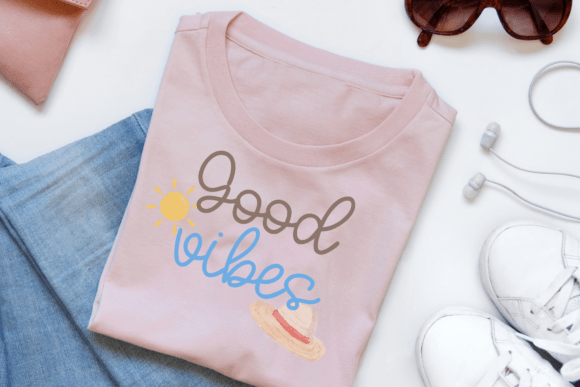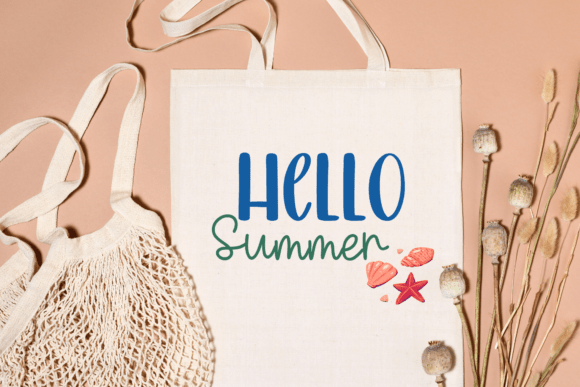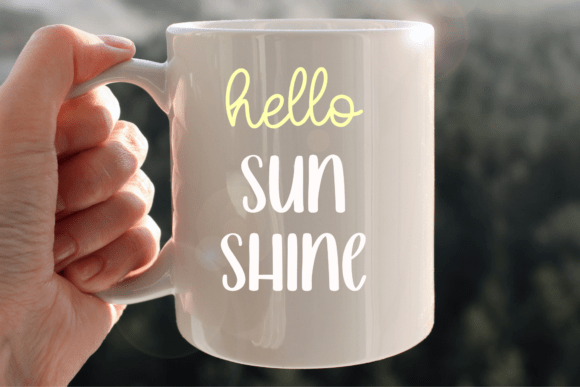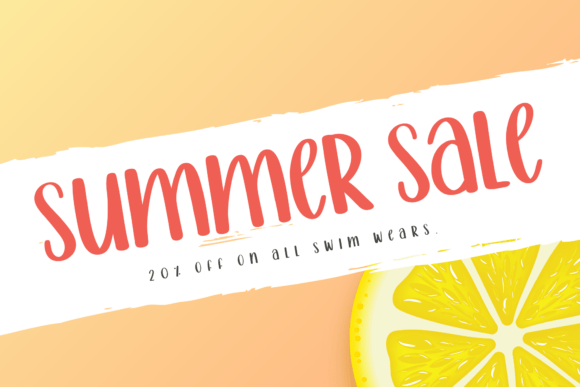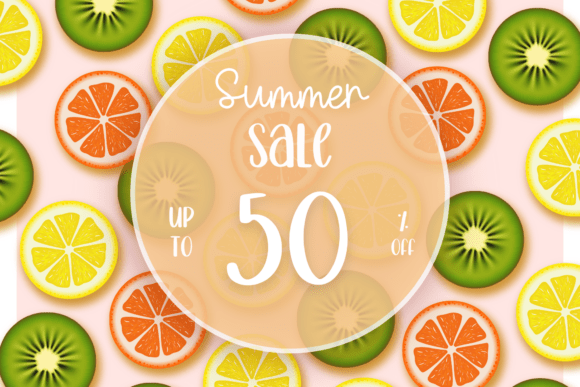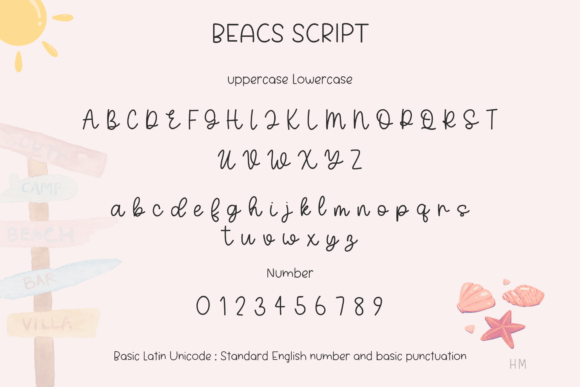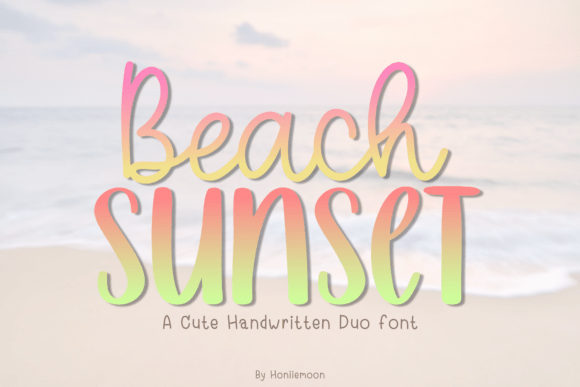
Introducing Beach Summer Font: The Perfect Handwritten Duo for Your Creative Projects
Are you looking for a font that captures the carefree spirit of summer and adds a touch of playfulness to your designs? Look no further than Beach Summer Font, a friendly duo font that combines the charm of handwritten and script styles. This versatile font is perfect for designers and crafters who want to bring a personal touch to their creative projects.
The Enchanting Essence of Handwritten Notes
There’s something special about handwritten notes that can evoke emotions and create a sense of connection. Beach Summer Font aims to capture this enchanting essence, providing a tool that can bring your creative vision to life. With its playful and engaging personality, this font is ideal for a wide range of projects, from invitations and greeting cards to social media graphics and blog posts.
A Friendly Duo Font: Handwritten and Script
Beach Summer Font is a duo font that consists of two complementary styles: handwritten and script. This allows you to mix and match the fonts to create a unique look that suits your design needs. The handwritten style is perfect for adding a personal touch, while the script style adds a touch of elegance and sophistication.
Key Features of Beach Summer Font
- Handwritten and script styles: Use one or both fonts to create a unique look that suits your design needs.
- Playful personality: Beach Summer Font has a carefree spirit that’s perfect for summer-themed designs.
- Captivating and engaging: This font is designed to capture the attention of your audience and keep them engaged.
- Perfect for creative projects: Use Beach Summer Font for invitations, greeting cards, social media graphics, blog posts, and more.
Why Choose Beach Summer Font?
With so many fonts available, why choose Beach Summer Font? Here are just a few reasons:
- Unique and versatile: Beach Summer Font is a one-of-a-kind duo font that can be used for a wide range of projects.
- Easy to read: The clear and legible design of Beach Summer Font makes it easy to read, even at small sizes.
- Time-saving: With Beach Summer Font, you can create professional-looking designs in no time.
- Fun and playful: This font is perfect for designers and crafters who want to add a touch of personality to their designs.
Tips for Using Beach Summer Font
Here are a few tips for getting the most out of Beach Summer Font:
- Mix and match: Use both the handwritten and script styles to create a unique look.
- Experiment with colors: Beach Summer Font looks great in bright, bold colors that evoke the spirit of summer.
- Add embellishments: Use Beach Summer Font with embellishments like graphics and icons to create a more playful design.
- Keep it simple: Don’t be afraid to keep your design simple and elegant, using Beach Summer Font as the focal point.
Beach Summer Font is a friendly duo font that’s perfect for designers and crafters who want to add a touch of personality to their creative projects. With its playful and engaging personality, this font is ideal for a wide range of designs, from invitations and greeting cards to social media graphics and blog posts. So why wait? Download Beach Summer Font today and start bringing your creative vision to life!